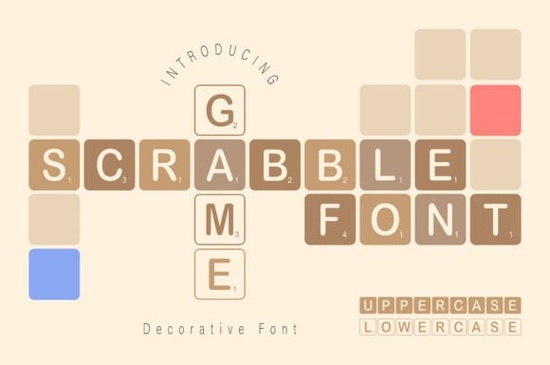
If you work on school projects, scrapbooks, or printable worksheets, you know how hard it can be to find a font that feels both fun and functional. Scrabble Game Font is a Scrabble Game Font that takes inspiration from the classic word board game most of us grew up playing. It gives you an outline style in lowercase and a silhouette style in uppercase, plus numbers and symbols. That combination makes it surprisingly versatile for a wide range of creative projects.
What Makes This Font Stand Out?
Plenty of playful fonts exist, but this one is designed with real practicality in mind. The outline style in lowercase works great when you want a light, open look think coloring pages, cut files, or designs where you want a background pattern to show through. The silhouette style in uppercase gives you a solid, filled-in letter that's bold and easy to read at any size.
Having both styles in a single font file means you don't need to switch between fonts or manually layer styles. You just type in lowercase for outlines and uppercase for solid letters. Numbers and symbols are included too, so you can create full designs without running into missing characters.
Who Is This Font For?
This font works well for a surprisingly broad audience. Here's who tends to get the most out of it:
- Teachers and parents creating educational worksheets, flashcards, or classroom posters
- Scrapbook enthusiasts who want a word-game theme for memory pages
- Print-on-demand sellers designing t-shirts, mugs, and tote bags with a playful word theme
- Small businesses making signage, menus, or promotional materials with a casual feel
- DIY crafters working on vinyl decals, stickers, or greeting cards
The friendly, approachable look of this font means it fits naturally into projects where you want people to smile when they see it.
What Kinds of Projects Work Best?
Because the font is based on a board game concept, it pairs especially well with:
- Word search and crossword-style designs
- Game night invitations or party decorations
- Spelling and vocabulary worksheets for kids
- Scrapbook layouts with a retro or nostalgic theme
- Poster designs for literacy events or book fairs
- Social media graphics with a fun, casual tone
The outline style is particularly useful if you're working with cutting machines like Cricut or Silhouette. Outlined letters are easy to trace and cut, which saves you time during the crafting process.
How Does It Compare to Other Decorative Fonts?
Every decorative font serves a different mood. If you're working on a project that calls for something more elegant, a font like Wedding Infinity Monogram Font might be a better fit for wedding invitations or monogram designs. For something with a nature-inspired, whimsical feel, the Butterfly Inside Font adds a delicate decorative element that works beautifully for greeting cards and feminine branding.
And if you want a font that leans into fantasy or nighttime themes, New Moon Font brings a completely different energy to your designs. The point is that having a variety of decorative fonts in your library lets you match the right typeface to the right project. Scrabble Game Font fills the playful, educational, word-game niche that these other fonts don't cover.
Tips for Getting the Most Out of It
A few practical suggestions if you decide to add this font to your collection:
- Use lowercase for printables the outline letters work great as coloring elements on worksheets and activity pages.
- Use uppercase for bold headers the solid silhouette letters stand out on posters and t-shirt designs.
- Mix both cases intentionally combining outlines and silhouettes creates a layered, game-board effect.
- Pair it with a simple sans-serif for body text so the decorative font doesn't compete with your message.
- Test at small sizes before committing to a final layout, especially for stickers or small print items.
Taking five minutes to preview and plan saves you from headaches later. If the playful, word-game look matches your next project, this font is a solid addition to your creative toolkit.